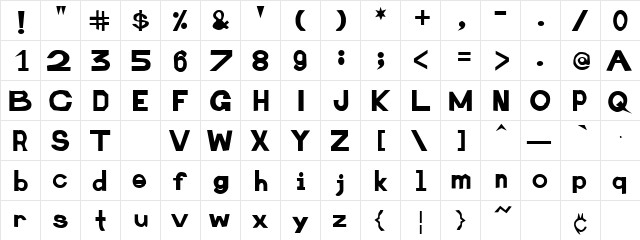
Retardo Obese 1
Design Context for Retardo Obese Typeface
Retardo Obese is a composed and adaptable typeface that performs quietly and consistently across a wide range of design contexts.